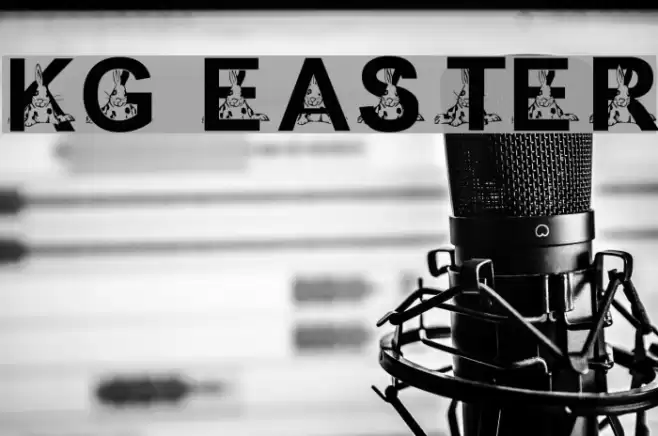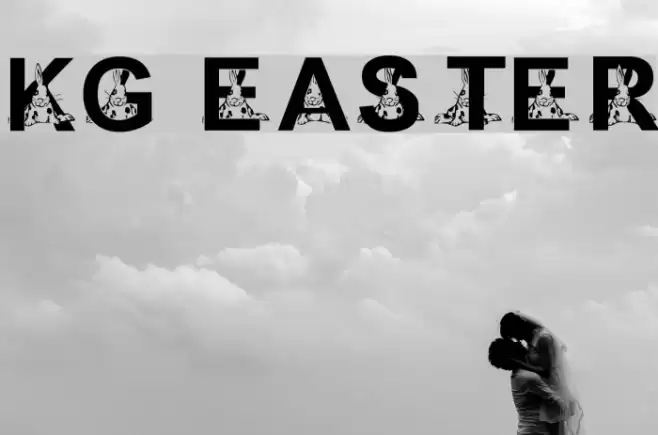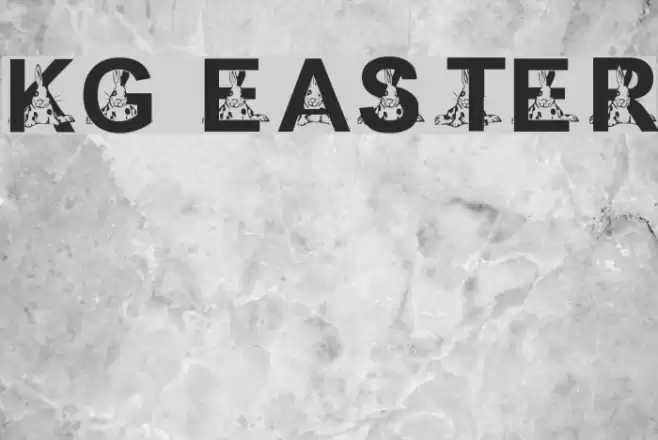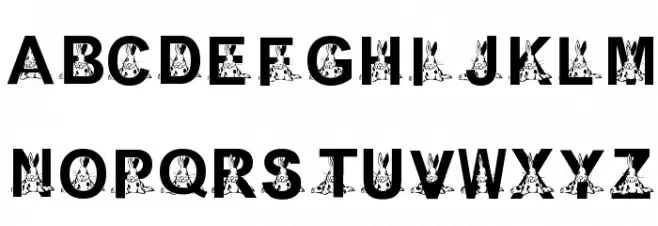
KG EASTER1 Font
KG EASTER1 Description
This decorative font features a playful and whimsical design, incorporating Easter-themed elements within each character. The letters are bold and have a unique pattern that includes intricate details, making them stand out. The font is designed to capture attention with its festive and cheerful appearance, ideal for seasonal projects. The uppercase and lowercase letters maintain a consistent style, ensuring a cohesive look across different text applications. The inclusion of special characters adds versatility, allowing for creative expression in various contexts.
A playful, Easter-themed decorative font with intricate details from Uncategorized fonts.
- Proposed Projects: Ideal for Easter-themed invitations, greeting cards, festive banners, and children's event promotions.
- Use Case: Headlines, Logos, Invitations